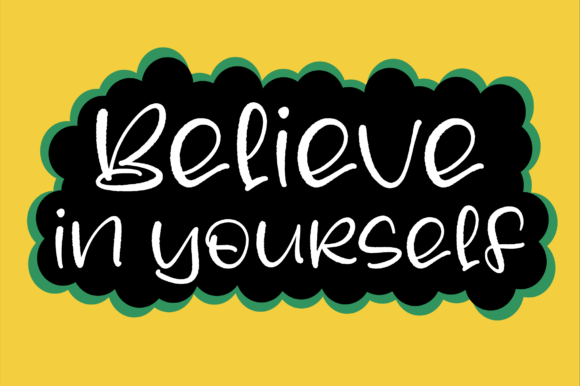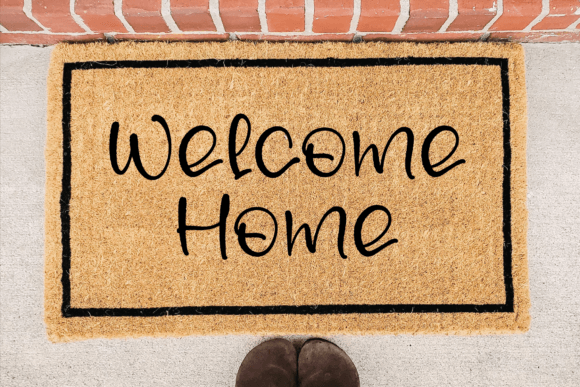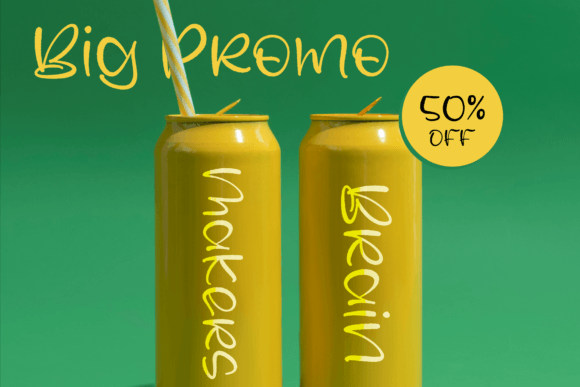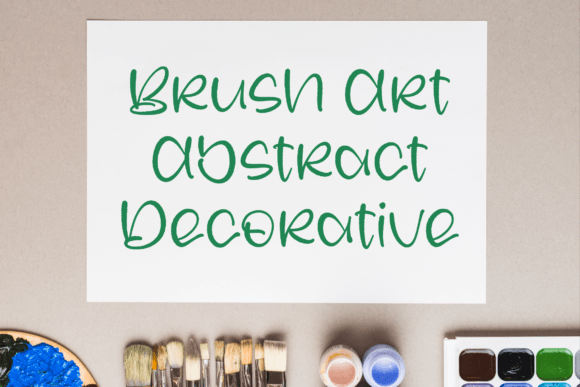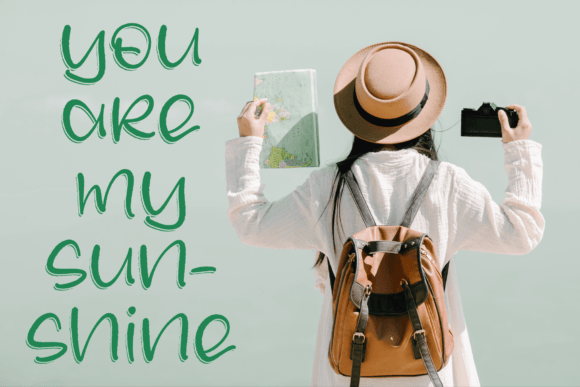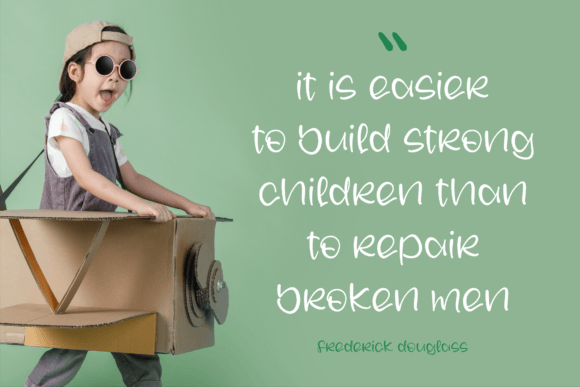
Discover the Whimsy of Bowliers Dream Font
Have you ever been rummaging through your stash of craft supplies, searching for the perfect combination of colors and textures to bring your latest project to life? It’s that moment, surrounded by scraps of paper, glue sticks, and half-finished DIYs, that you realize the importance of the right font to tie everything together. Whether you’re a seasoned crafter or a digital design newbie, finding that perfect font can make all the difference in elevating your creations from good to great.
Enter Bowliers Dream Font, a charming and inviting handwritten font that’s perfect for adding a personal touch to your crafts, digital designs, and presentations. With its friendly and approachable style, Bowliers Dream Font is sure to become your go-to choice for any occasion, from greeting cards to social media graphics.
As a designer, you know how valuable it is to have a versatile font that can adapt to any situation. Bowliers Dream Font is that font, offering a unique blend of playfulness and sophistication that’s sure to impress. So why not give it a try and discover the magic of Bowliers Dream Font for yourself?
Bowliers Dream Font Key Features
- Font Family: A unique, hand-drawn script font with elegant and whimsical characteristics.
- Unique Characteristics: Features a distinctive, flowing style with subtle flourishes and connectors, ideal for creating visually appealing headings and titles.
Bowliers Dream Font Review
I have to say, I was immediately drawn to the whimsical nature of Bowliers Dream Font ✨. The unique combination of script and serif elements creates a captivating visual experience. The font’s versatility makes it suitable for a wide range of projects, from elegant invitations to playful children’s books.
The font’s key strengths include:
- A beautiful, flowing script style that adds a touch of sophistication to any design
- A wide range of weights and styles to accommodate different design needs
- Excellent legibility, making it easy to read even at smaller font sizes
However, I do have some concerns ⚠️:
- The font may be too ornate for some designs, potentially overpowering the content
- The script elements can be a bit too playful for formal or professional projects
Overall, I think Bowliers Dream Font is a great addition to any designer’s toolkit. While it may not be the best fit for every project, its unique charm and versatility make it a valuable resource for creatives looking to add a touch of personality to their designs.
Bowliers Dream Font is ideal for creative projects, such as:
2. Artistic posters and prints.
3. Branding and marketing materials.
Alternatives to “Bowliers Dream Font”
Great Vibes is a beautiful, elegant script font that is perfect for adding a touch of sophistication to your designs. It is ideal for use in branding, advertising, and editorial projects where a high-end feel is required. Great Vibes has a more refined and polished look compared to Bowliers Dream Font, which can appear more playful and whimsical.
Pacifico is a modern script font that is perfect for use in designs where a relaxed, beachy vibe is required. It is ideal for use in branding, advertising, and packaging projects where a casual, laid-back feel is desired. Pacifico has a more relaxed and casual look compared to Bowliers Dream Font, which can appear more formal and elegant.